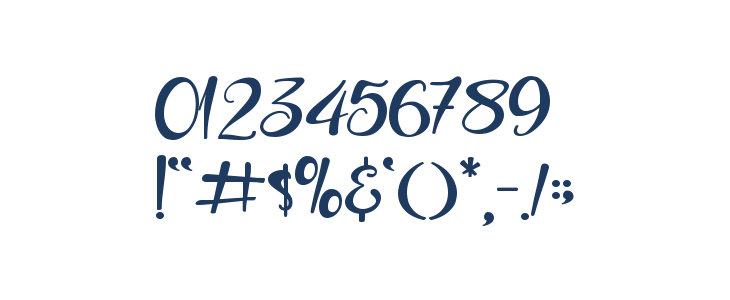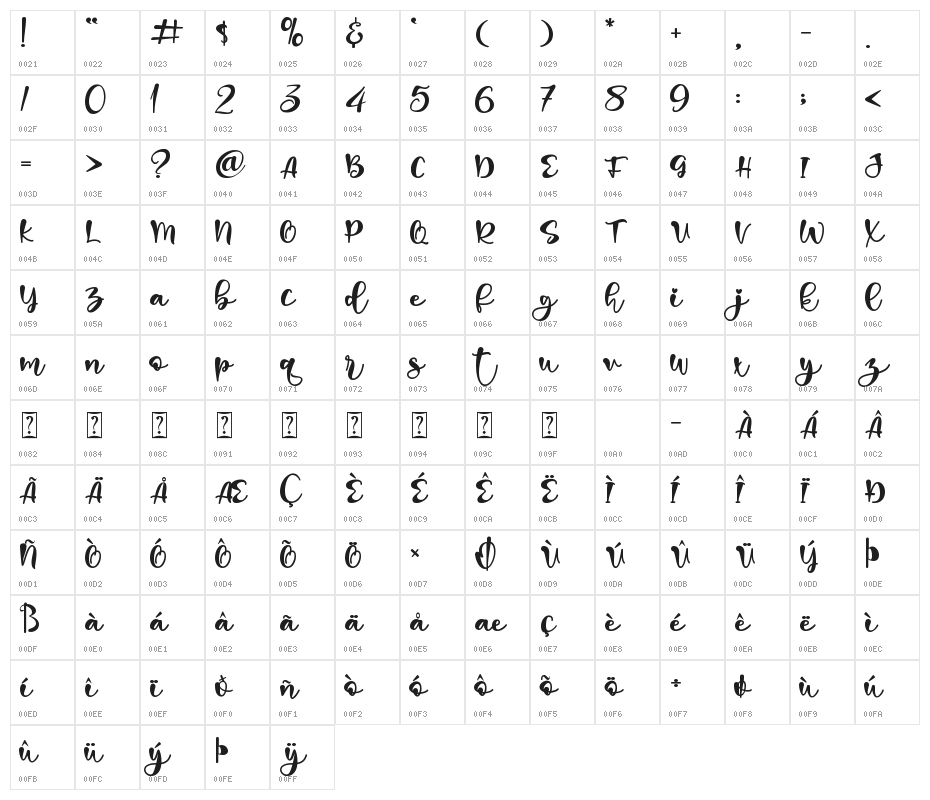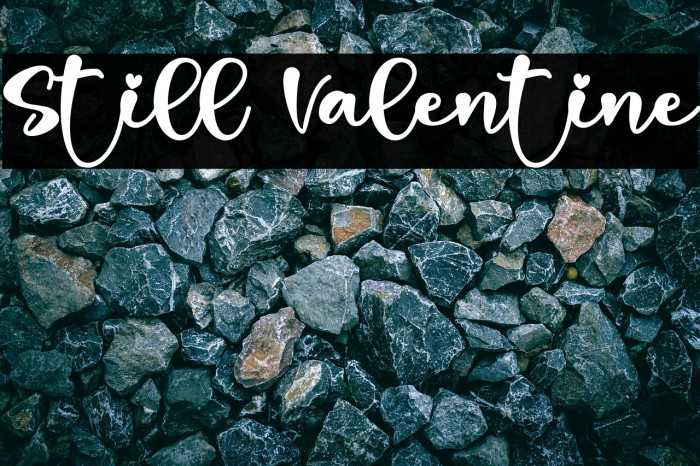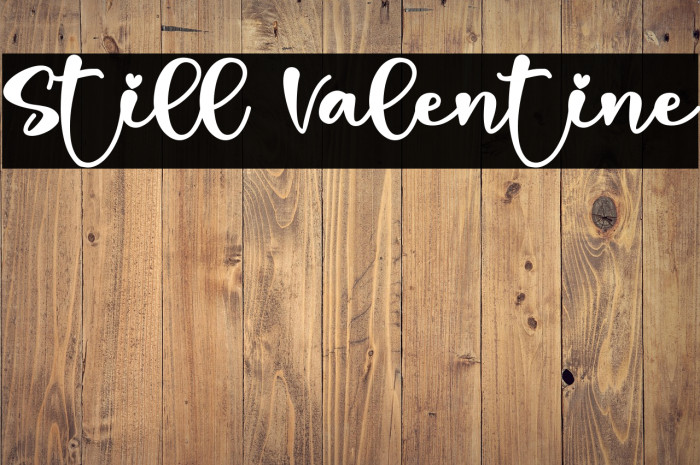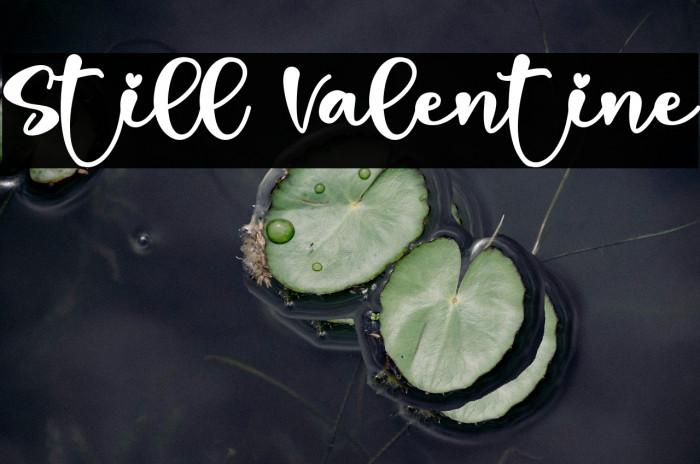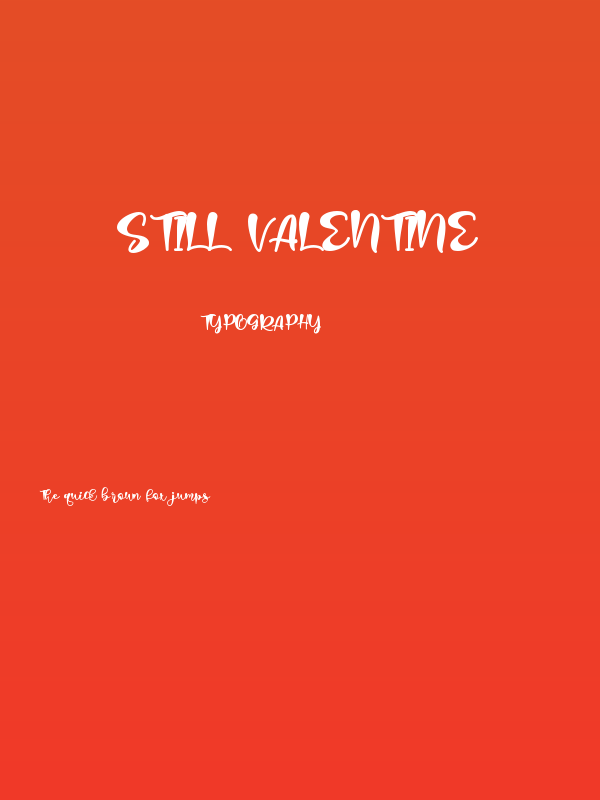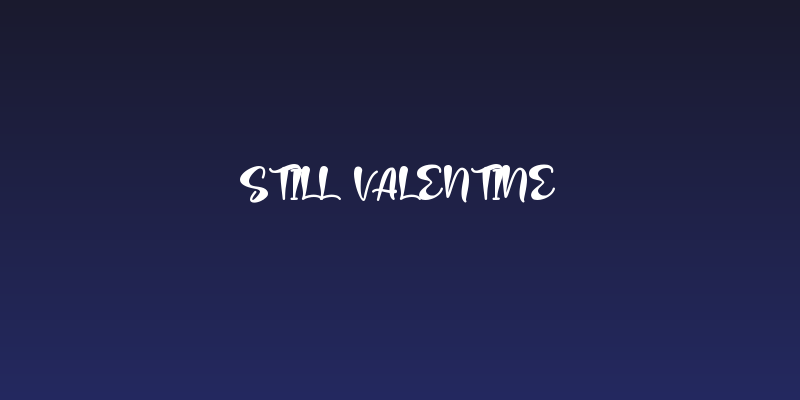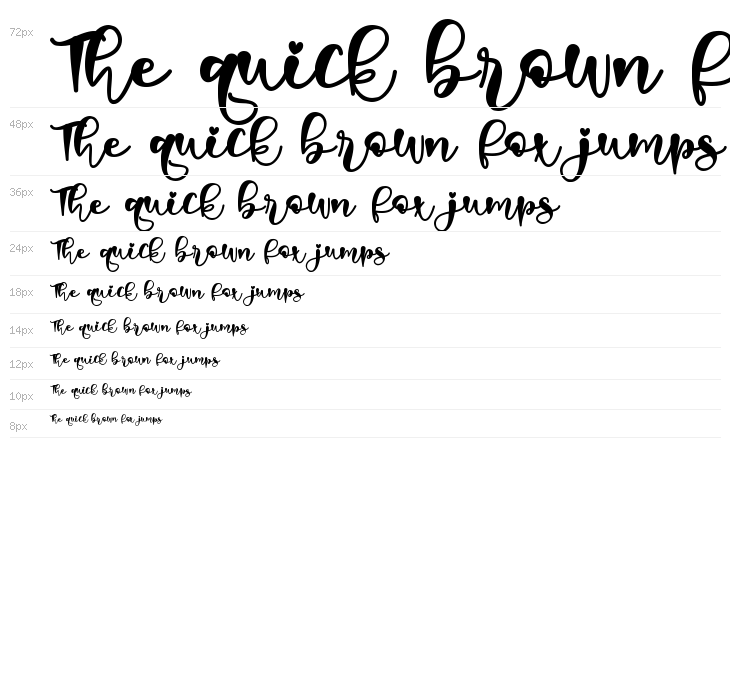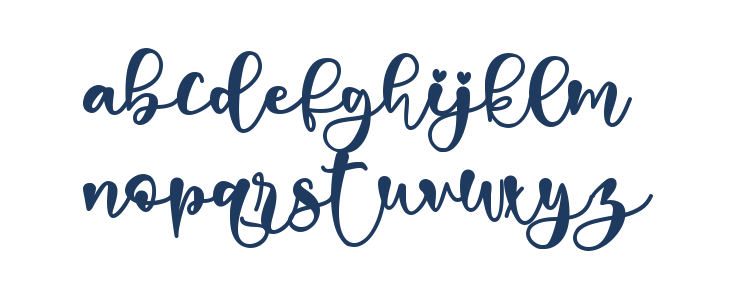
Still Valentine Font
Still Valentine Description
This font features a playful and whimsical script style with a handwritten appearance. The letters are bold and rounded, with a smooth flow that gives a sense of movement and energy. The uppercase letters are slightly more structured, while the lowercase letters have a more casual and relaxed feel. The numbers and special characters maintain the same lively and dynamic style, making the font versatile for various creative projects. The strokes are consistent in thickness, providing a balanced look across all characters.